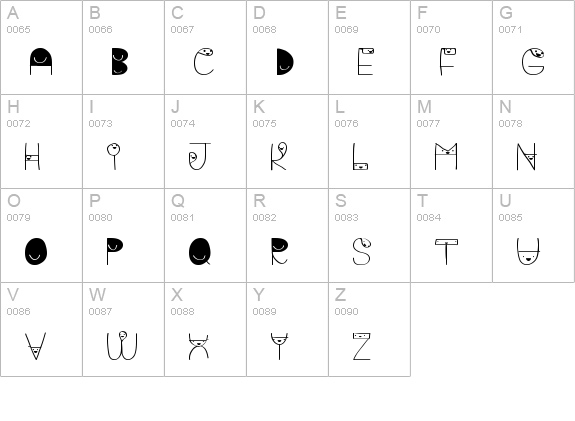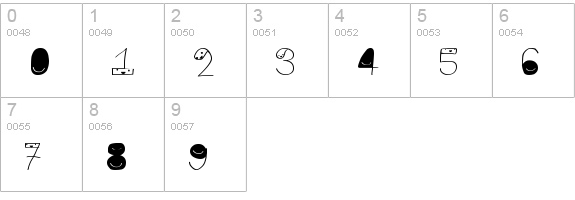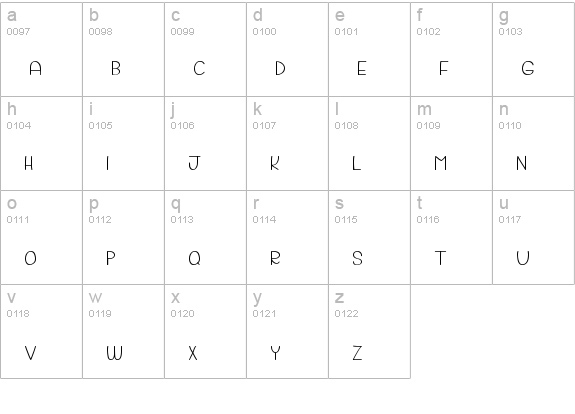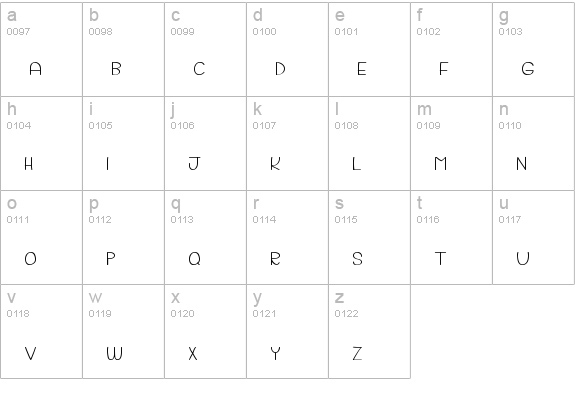
bigattino Font Details
Bigattino font is a stylish and modern typeface that exudes elegance and sophistication. Its sleek lines and clean design make it perfect for a wide range of design projects, from branding to editorial. The font features a unique blend of classic and contemporary elements, making it versatile and eye-catching. And the best part? Bigattino font is completely free to download at FontsMarket.com! This means you can access this stunning font without any cost, making it an ideal choice for budget-conscious designers and creatives. So why wait? Download Bigattino font today and elevate your designs with its timeless charm and impeccable style.